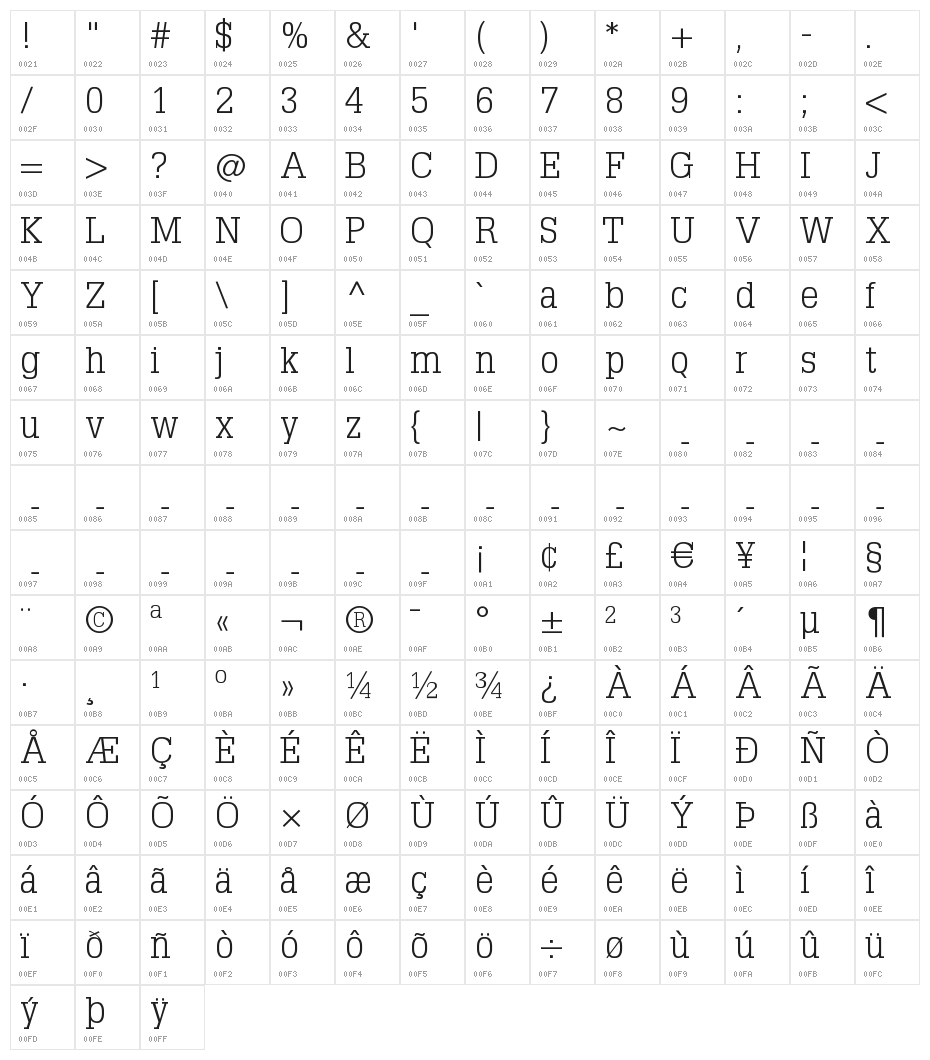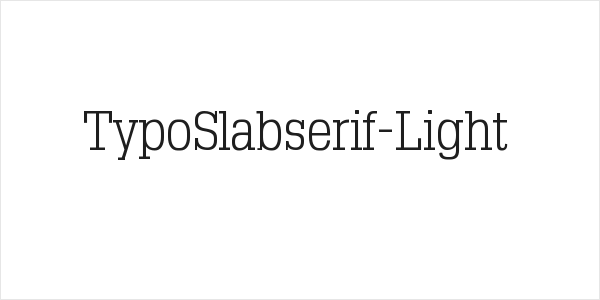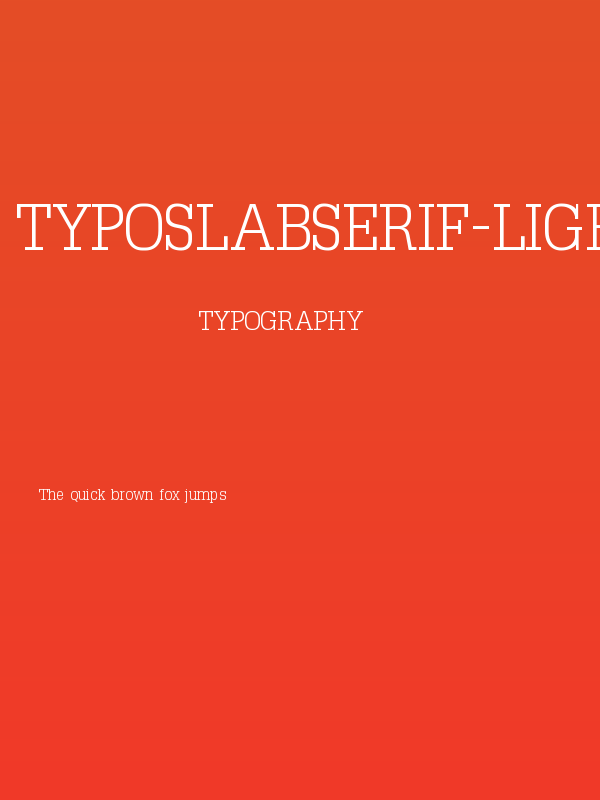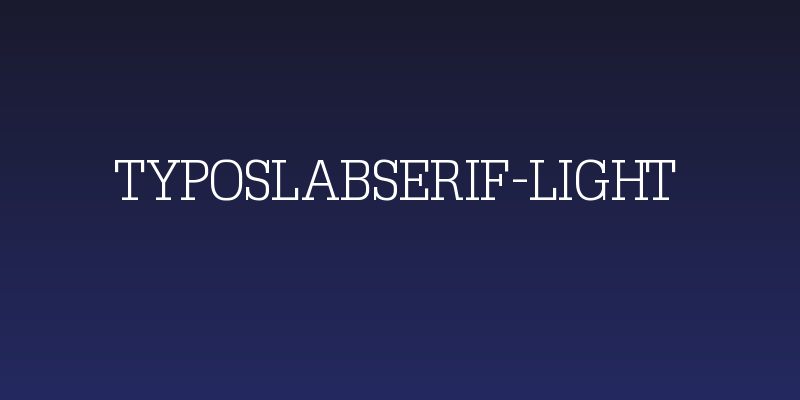
TypoSlabserif-Light Font
TypoSlabserif-Light Description
This font is a refined slab serif with a light weight, offering a clean and professional appearance. The characters are well-defined with subtle serifs that add a touch of elegance without overwhelming the design. The uppercase letters are bold and commanding, while the lowercase letters maintain a consistent and harmonious flow. Numbers are clear and easy to read, making them suitable for both display and text purposes. Special characters are distinct and well-integrated, ensuring versatility across various applications. The overall design is balanced, making it suitable for both modern and traditional projects.
Overall StyleClassic
Proposed ProjectsIdeal for editorial design, branding, and corporate communications.